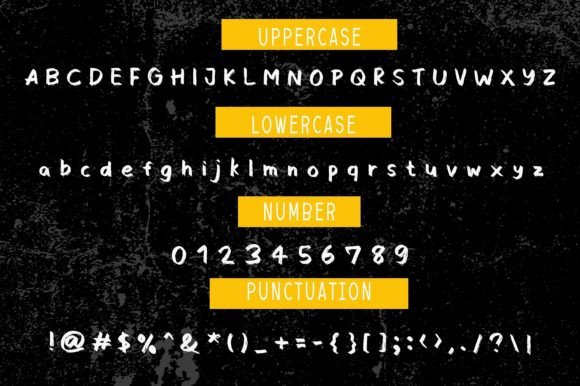
Brusher Font: The Ultimate Choice for Playful and Authentic Designs
Are you looking for a font that can add a touch of playfulness and authenticity to your designs? Look no further than Brusher Font! This cute and handwritten font is perfect for a wide range of design projects, from blog posts and logos to branding, ads, invitations, and more. In this article, we’ll explore the features and benefits of Brusher Font, and show you how to make the most of this versatile and charming font.
What is Brusher Font?
Brusher Font is a handwritten font that is characterized by its light and airy feel. The font features cute and playful characters that are sure to add a touch of whimsy to any design. The lightness of the characters makes it suitable for a wide range of design projects, from digital designs to print materials.
One of the standout features of Brusher Font is its authenticity. The font has a distinctly handmade feel that gives it a unique and personal touch. This makes it perfect for designers who want to add a touch of personality to their designs.
Features of Brusher Font
So, what makes Brusher Font so special? Here are just a few of its key features:
- Cute and playful characters: The characters in Brusher Font are designed to be cute and playful, making it perfect for designs that require a touch of whimsy.
- Light and airy feel: The lightness of the characters makes Brusher Font suitable for a wide range of design projects, from digital designs to print materials.
- Authentic and handmade feel: The font has a distinctly handmade feel that gives it a unique and personal touch.
- Versatile: Brusher Font can be used for a wide range of design projects, from blog posts and logos to branding, ads, invitations, and more.
Uses of Brusher Font
So, what can you use Brusher Font for? The answer is: almost anything! Here are just a few ideas to get you started:
- Blog posts: Add a touch of playfulness to your blog posts with Brusher Font. It’s perfect for headings, titles, and even body text.
- Logos and branding: Use Brusher Font to create a unique and memorable logo for your brand. The font’s handmade feel makes it perfect for crafty or artisanal brands.
- Ads and marketing materials: Brusher Font is perfect for ads and marketing materials that require a touch of playfulness and whimsy.
- Invitations and greeting cards: Use Brusher Font to create beautiful and unique invitations and greeting cards.
- Planners and photo albums: Add a touch of personality to your planners and photo albums with Brusher Font.
- Decorations: Use Brusher Font to create beautiful and unique decorations for your home or office.
Tips for Using Brusher Font
Here are a few tips for getting the most out of Brusher Font:
- Use it sparingly: Brusher Font is a bold and playful font, so use it sparingly to add emphasis to your designs.
- Pair it with other fonts: Brusher Font pairs well with other fonts, such as sans-serif fonts or serif fonts. Experiment with different pairings to find the one that works best for your design.
- Experiment with colors: Brusher Font looks great in a variety of colors, from bright and bold to pastel and soft.
- Use it consistently: Use Brusher Font consistently throughout your design to create a cohesive and professional look.
In conclusion, Brusher Font is a versatile and charming font that is perfect for a wide range of design projects. Its cute and playful characters, light and airy feel, and authentic and handmade feel make it a great choice for designers who want to add a touch of personality to their designs.